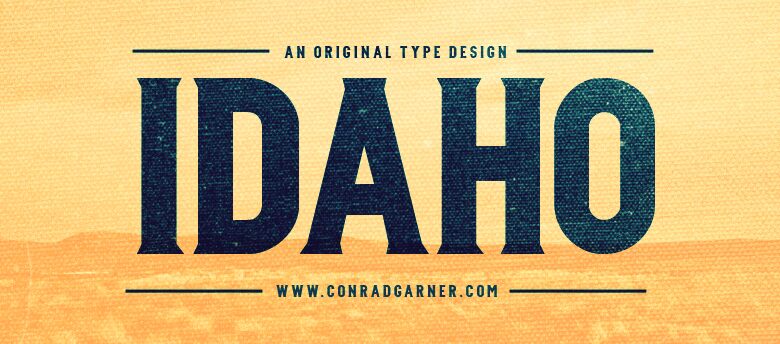
Idaho is a free high-contrast serif display font with towering, tightly packed letters and a theatrical silhouette. Broad black strokes meet needle-thin joins and sharply flared serifs, producing abrupt shifts of weight and narrow internal spaces that make the lettering feel carved as much as drawn.
The font can turn a poster heading into part of the illustration. Its compressed forms also suit fashion editorial covers, music packaging, dramatic event graphics, and branding for theatrical venues or cabaret nights. The recurring spear-like serifs and deep notches give posters, packaging, and venue graphics the look of ornate, cut and painted stage scenery.
Conrad Garner, 2011.